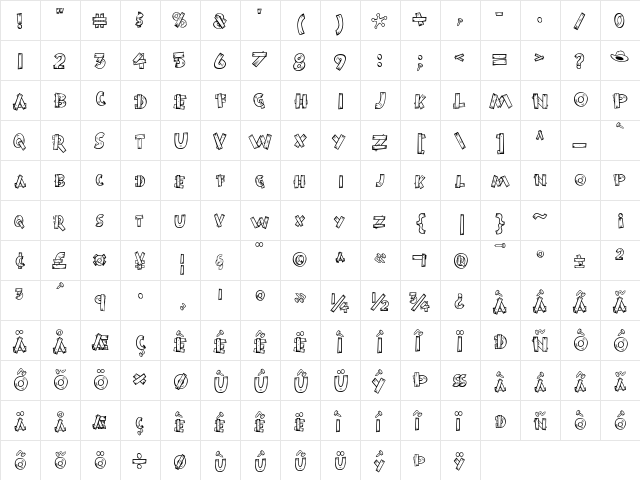
Burnstown Dam Regular Font Preview
Burnstown Dam Regular
Design Context for Burnstown Dam Typeface
Burnstown Dam is a composed and adaptable typeface that performs quietly and consistently across a wide range of design contexts.